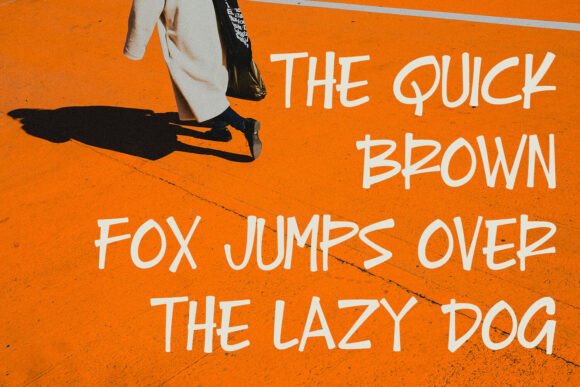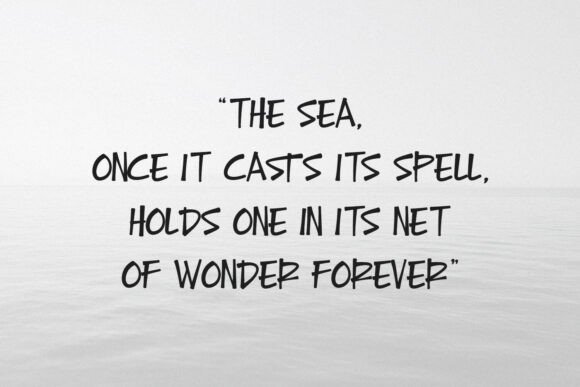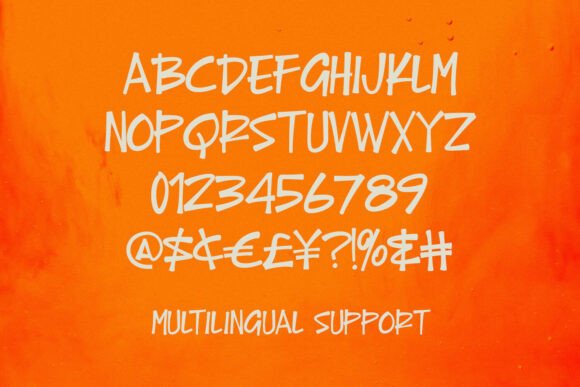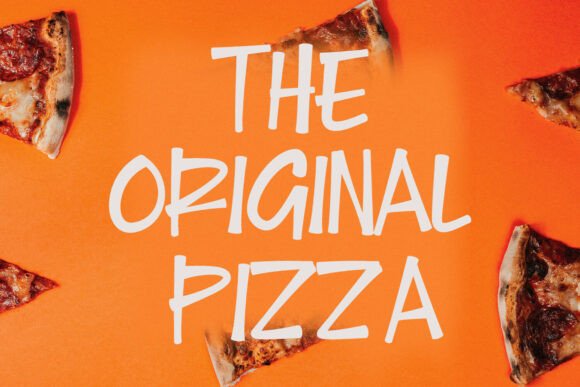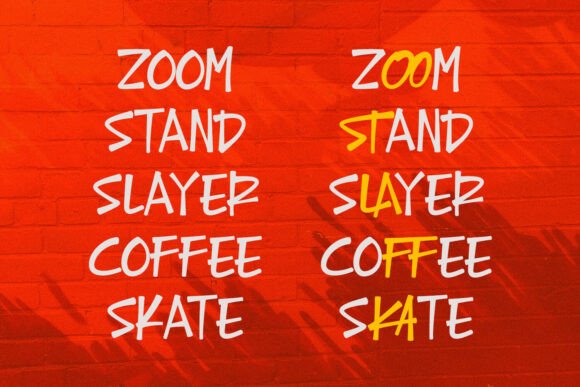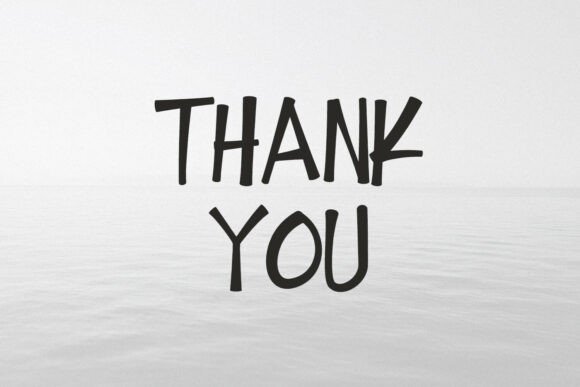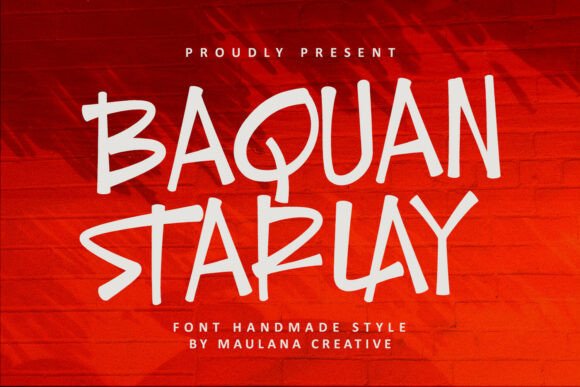
Unleash Your Creativity with Baquan Starlay 1 Font: The Ultimate Display Font for Bold Statements
In the world of typography, few fonts manage to capture the essence of raw energy and spontaneity as effectively as the Baquan Starlay 1 Font. This display font is a game-changer for designers and crafters looking to make a bold, unforgettable statement. With its thick, confident brushstrokes and rough, textured edges, Baquan Starlay 1 embodies the vibrant spirit of a hand-painted sign, infusing any project with a sense of life and movement.
The Distinctive Characteristics of Baquan Starlay 1
Baquan Starlay 1 is defined by its uppercase forms that stand tall and unapologetically bold. Each letter is crafted with a sense of fluid movement, preventing the font from feeling static or rigid. This dynamic quality is a result of the meticulous design process, which aimed to emulate the natural flow of hand-painted letters. The result is a font that exudes confidence and energy, perfect for grabbing attention and making a lasting impression.
Readability and Versatility
Despite its rugged appearance, Baquan Starlay 1 boasts strong, simple letterforms that ensure excellent readability. This powerful versatility makes it an ideal choice for a wide range of applications, from striking headlines and edgy event posters to music album art and branding that requires an authentic, rebellious spirit. Whether you’re working on a digital project or a print design, Baquan Starlay 1 adapts seamlessly, delivering your message with impact and clarity.
The Urban Tone of Baquan Starlay 1
Baquan Starlay 1’s expressive, urban tone is one of its most distinctive features. The font’s gritty texture and dynamic hand-drawn style blend perfectly to create a unique charm that is both authentic and captivating. This urban edge makes it the perfect fit for designers and crafters looking to infuse their projects with a sense of rebellion and nonconformity.
Applications of Baquan Starlay 1
The possibilities are endless with Baquan Starlay 1. Here are some of the most effective ways to utilize this incredible display font:
- Headlines and Titles: Use Baquan Starlay 1 to create bold, eye-catching headlines that demand attention. Its confident brushstrokes and dynamic movement make it perfect for titles that need to stand out.
- Event Posters: Add an edgy, urban feel to your event posters with Baquan Starlay 1. The font’s rugged texture and expressive tone are sure to resonate with your audience.
- Music Album Art: Give your music album art a rebellious, authentic vibe with Baquan Starlay 1. The font’s dynamic style and gritty texture make it a natural fit for the music industry.
- Branding: Infuse your brand with a sense of confidence and energy using Baquan Starlay 1. The font’s versatility and readability make it suitable for a wide range of branding applications.
Why Choose Baquan Starlay 1?
Baquan Starlay 1 is more than just a display font – it’s a statement piece. Its unique blend of gritty texture and dynamic hand-drawn style sets it apart from other fonts, making it a valuable addition to any designer’s toolkit. Here are just a few reasons why Baquan Starlay 1 stands out:
- Unique Style: Baquan Starlay 1’s distinctive charm lies in its perfect blend of gritty texture and dynamic hand-drawn style, ensuring your designs stand out from the crowd.
- Excellent Readability: Despite its rugged appearance, Baquan Starlay 1 boasts strong, simple letterforms that ensure excellent readability, making it suitable for a wide range of applications.
- Versatility: Baquan Starlay 1 adapts seamlessly to different design contexts, from digital projects to print designs, delivering your message with impact and clarity.
In conclusion, Baquan Starlay 1 Font is a game-changer for designers and crafters looking to make a bold statement. Its unique blend of gritty texture and dynamic hand-drawn style, combined with its excellent readability and versatility, make it an essential tool for any creative project. Whether you’re working on a headline, event poster, music album art, or branding, Baquan Starlay 1 is the perfect choice for infusing your designs with energy, confidence, and an authentic, rebellious spirit.